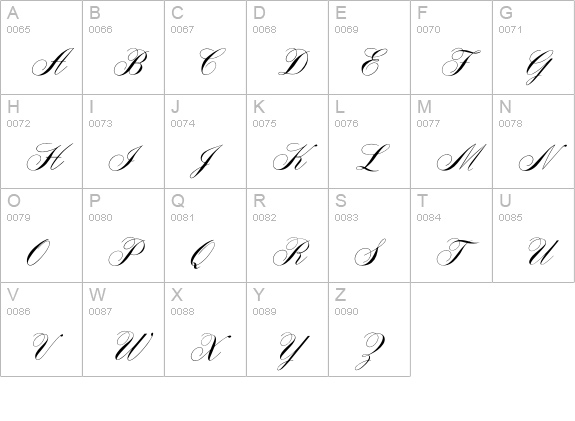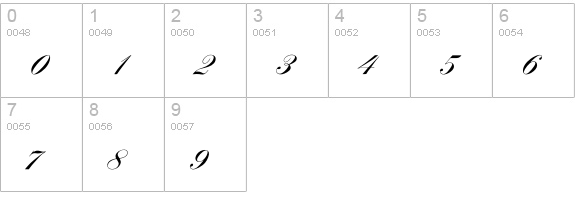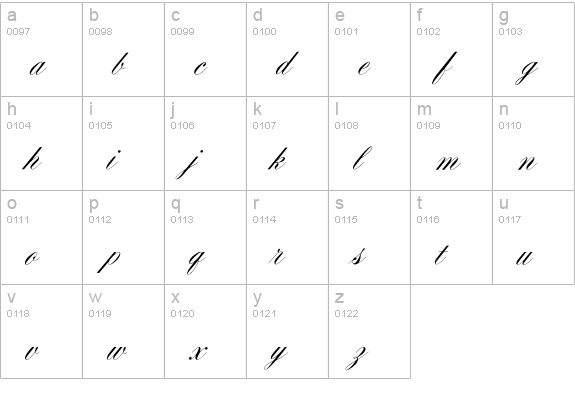
OPTIYale-Script Font Details
Introducing OPTIYale-Script, a beautifully crafted font that exudes elegance and sophistication. With its delicate curves and graceful flourishes, this script font is perfect for adding a touch of refinement to any design project. Whether you're creating invitations, branding materials, or signage, OPTIYale-Script will bring a sense of timeless charm to your work. The best part? OPTIYale-Script is completely free to download at FontsMarket.com. Now you can elevate your designs without breaking the bank. Don't miss out on this opportunity to enhance your projects with this stunning and versatile font. Download OPTIYale-Script today and let your creativity shine!